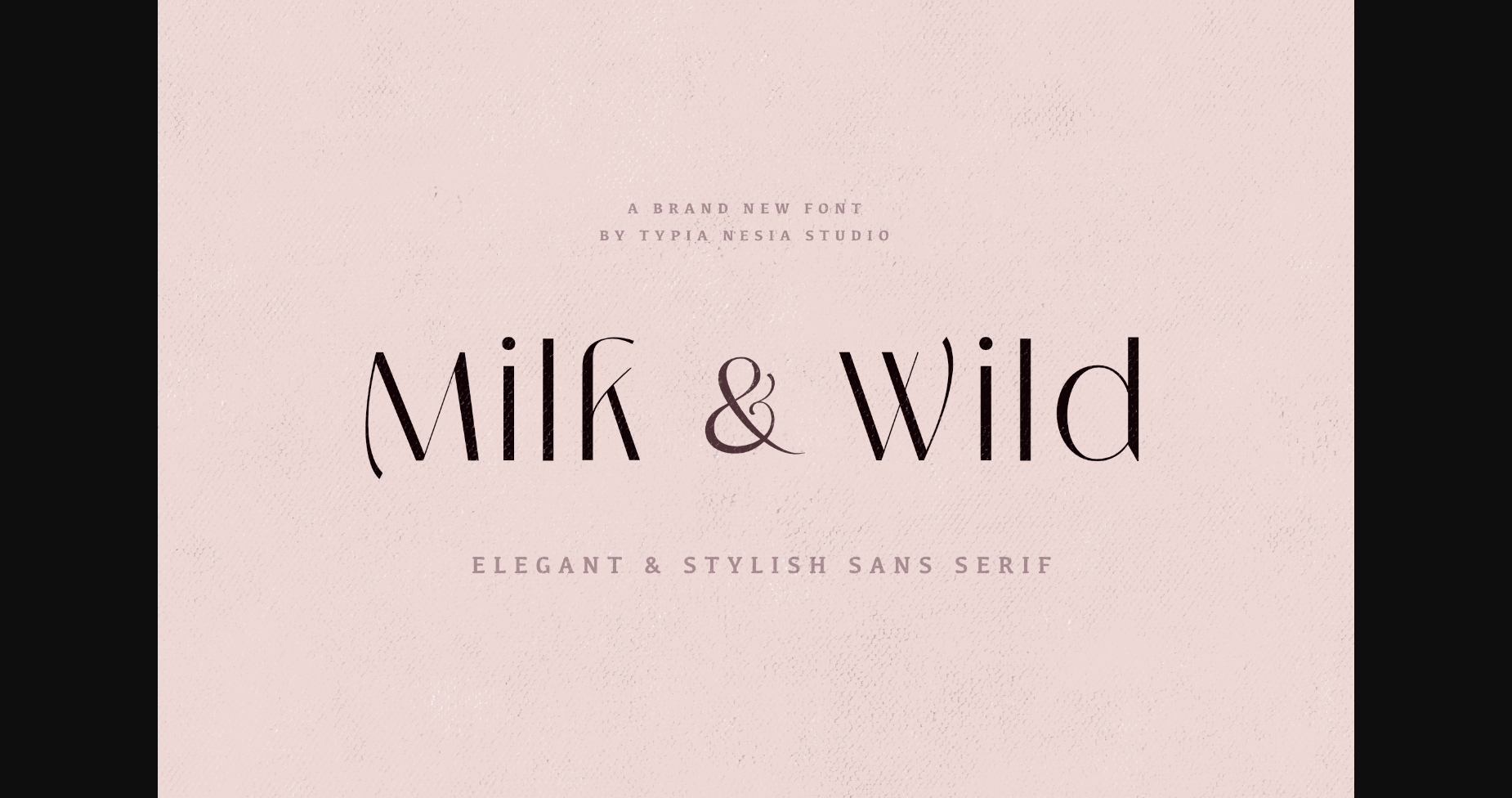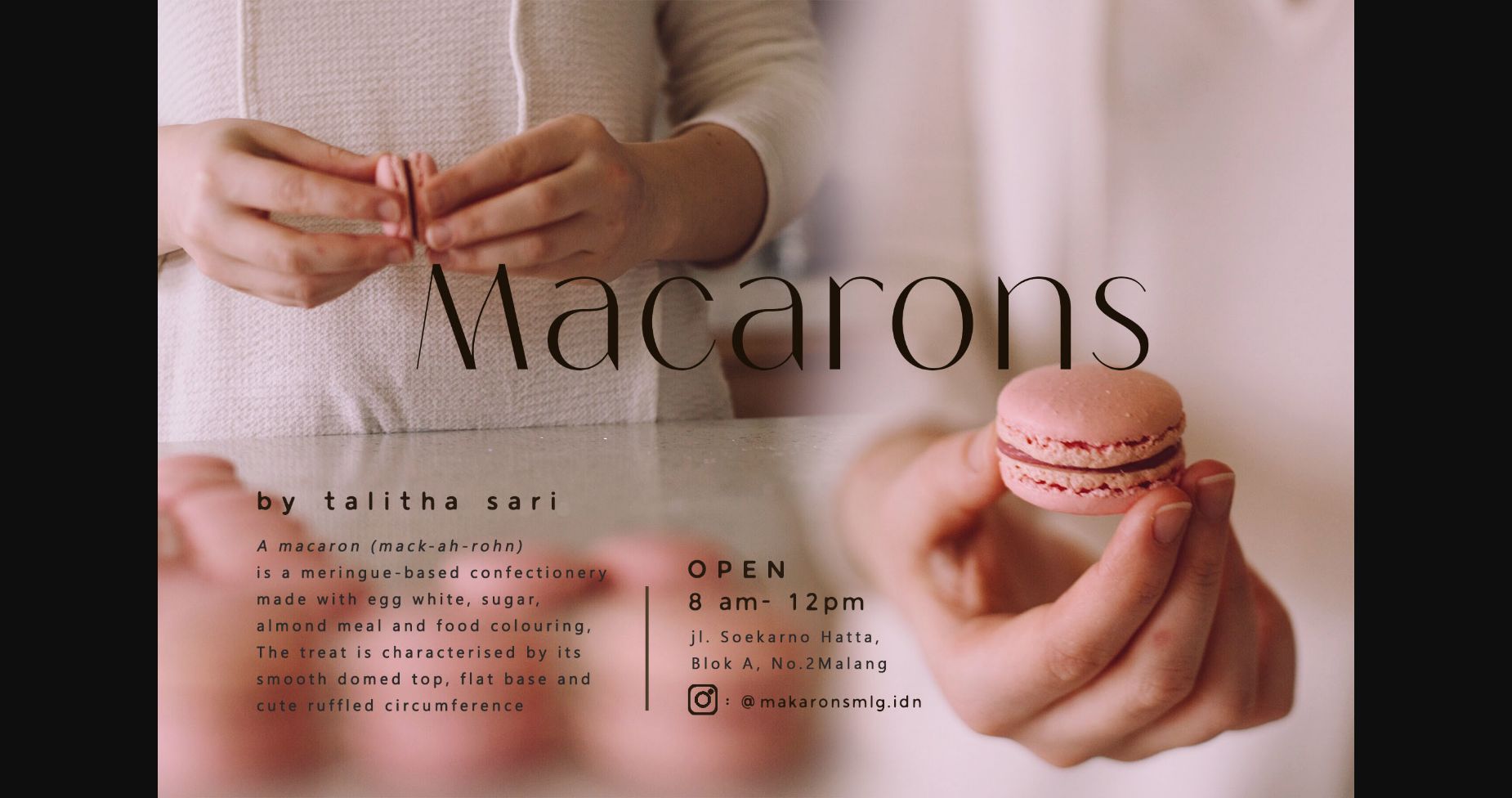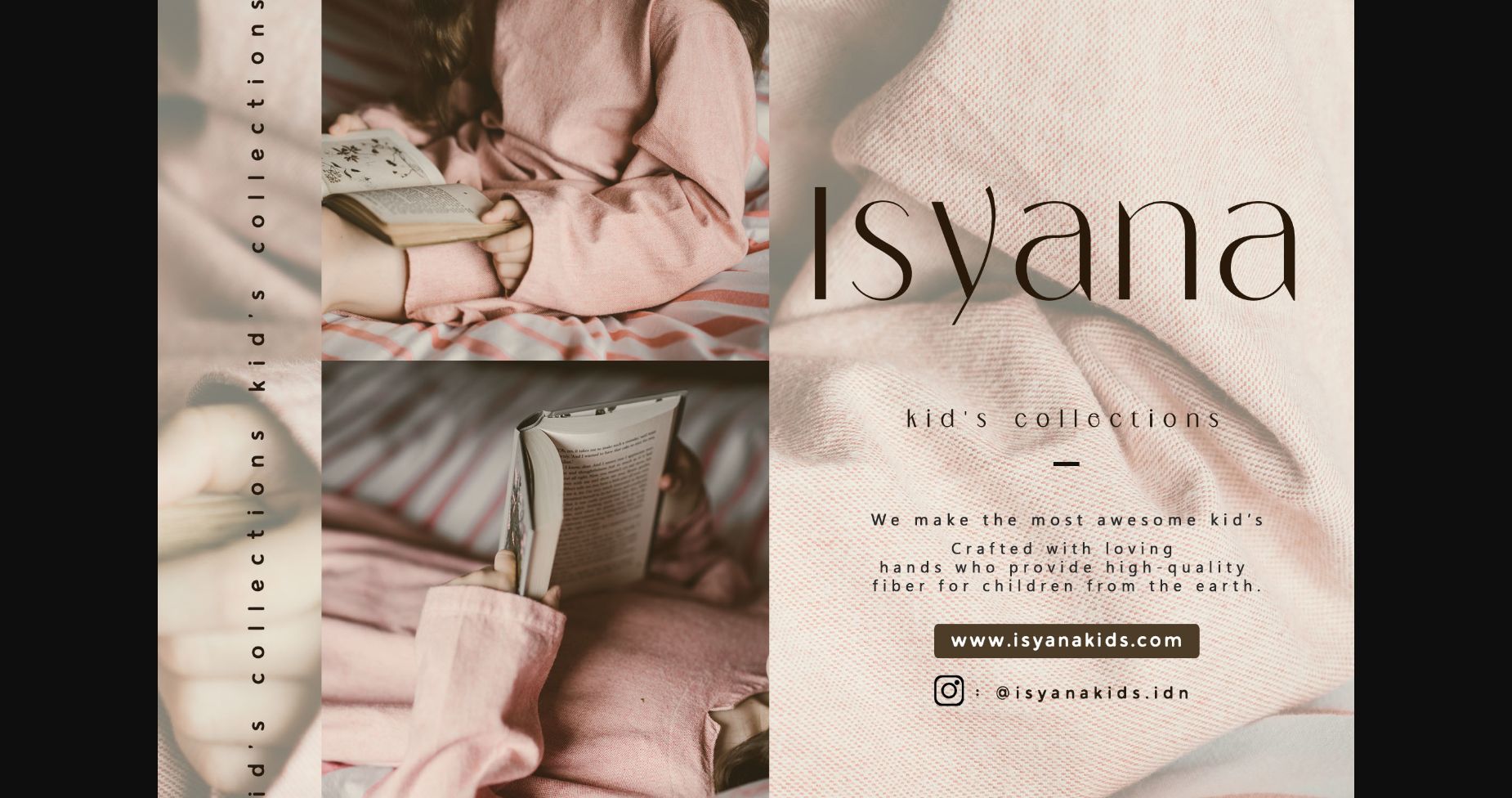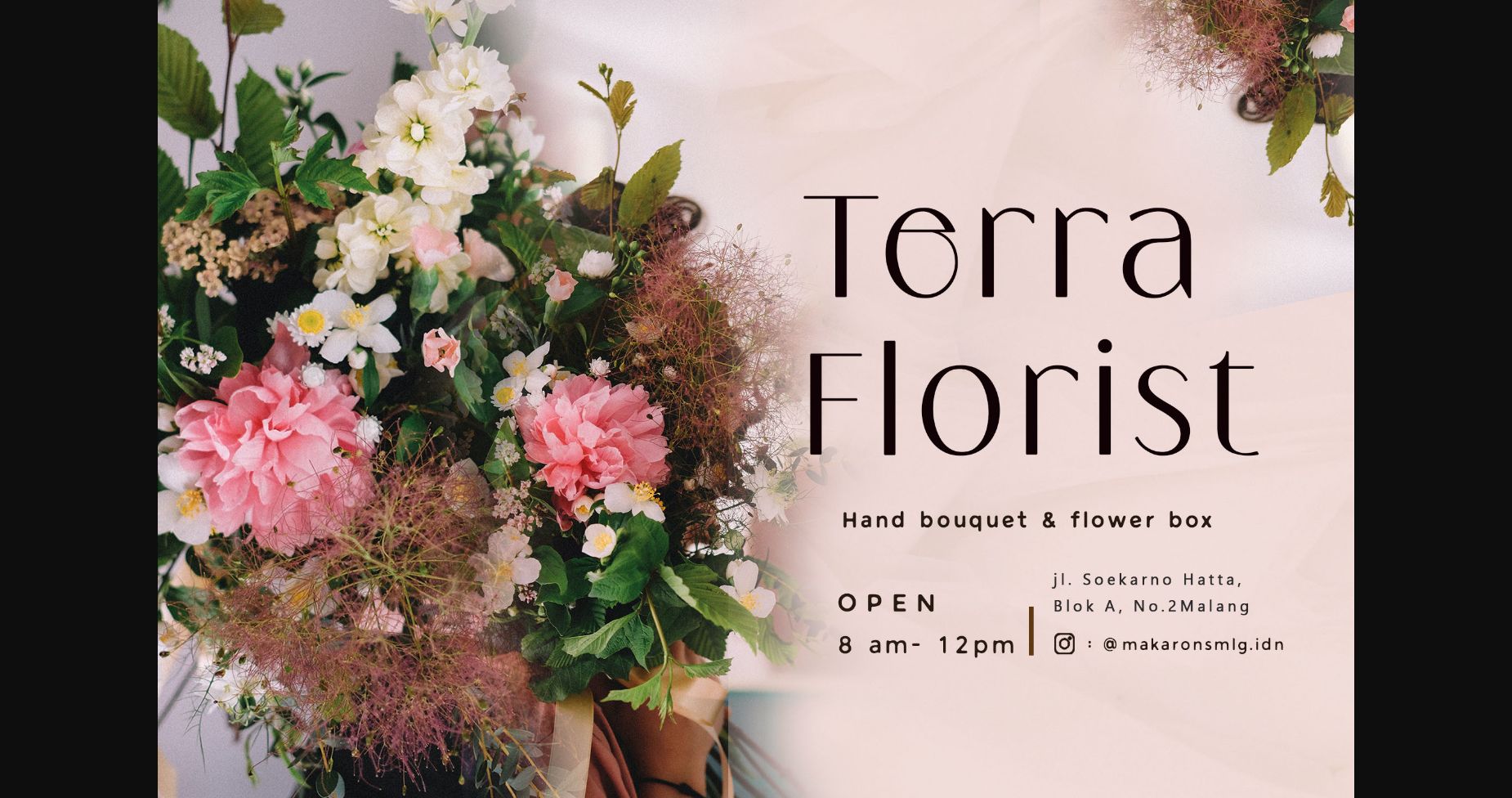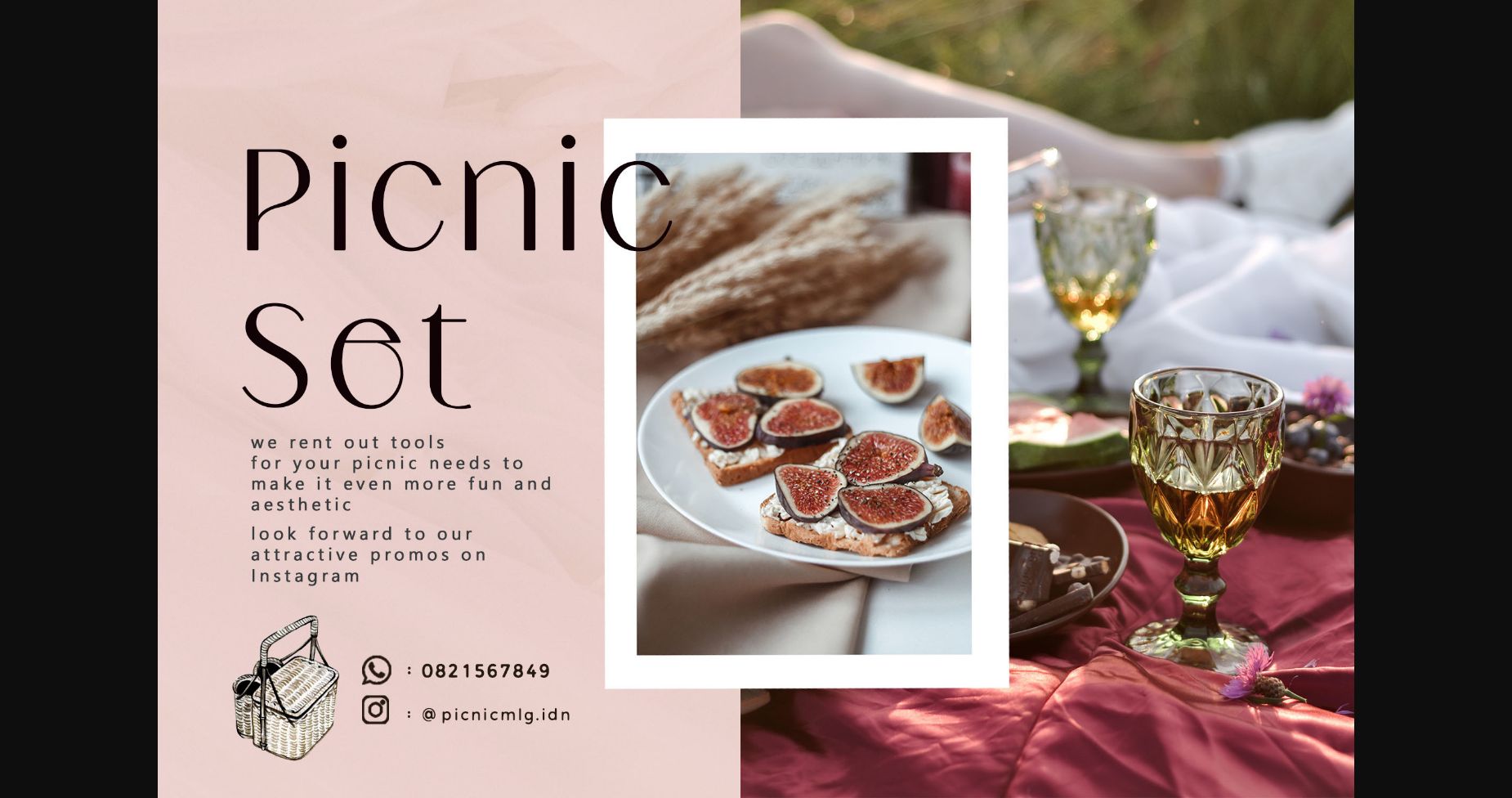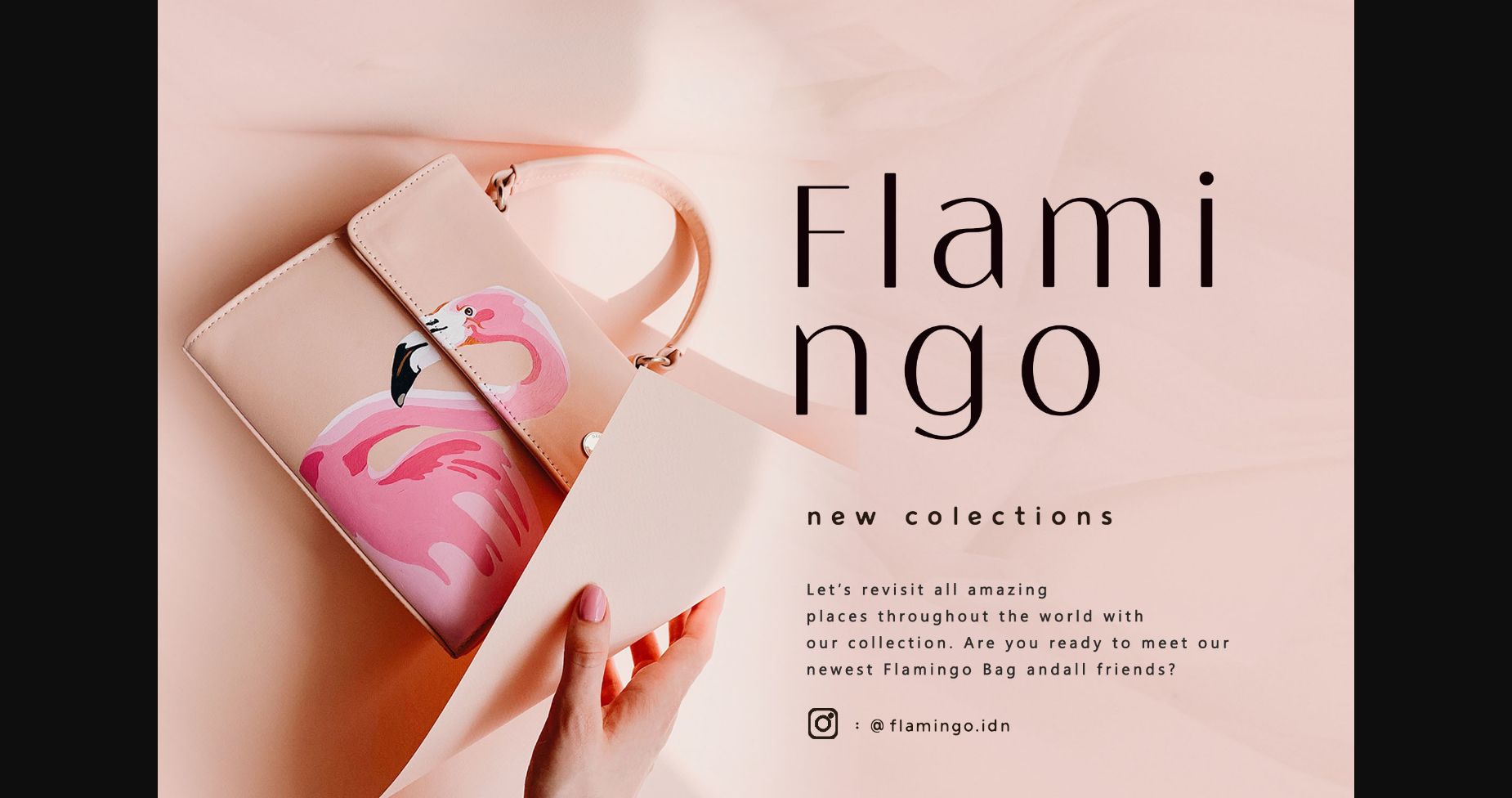
Milk and Wild Font
About Milk and Wild Font
Milk and Wild is a stylish sans serif font, perfect for your upcoming projects. It will beautifully enhance the look of luxury branding, classy editorials, magazines, cosmetic brands, blog designs, and much more!